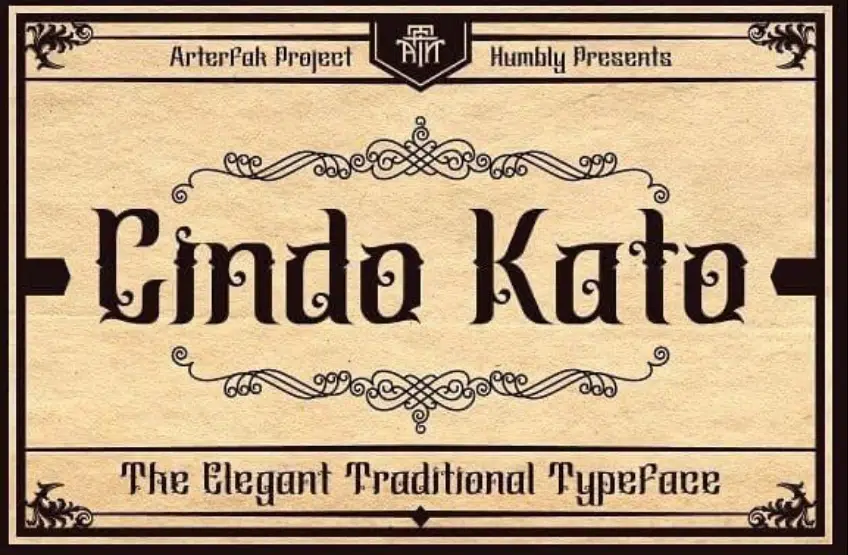
Cindo Kato Font
Cindo Kato Font is perfect for modern brand identities, contemporary logo designs, creative agency branding, stylish fashion labels, trendy social media graphics, artistic poster designs, innovative product packaging, urban lifestyle marketing, cutting-edge editorial layouts, and bold projects that celebrate creative individuality and contemporary design sensibility.
This font is exciting because it delivers distinctive personality and contemporary flair through uniquely crafted letterforms that feel fresh, confident, and unapologetically modern. The innovative character design breaks conventional typography rules while maintaining excellent readability, making it ideal for brands and creators who want to stand out from the crowd and make memorable impressions with audiences seeking originality.
The Cindo Kato Font family typically includes uppercase and lowercase characters, numerals, punctuation marks, special symbols, stylistic alternates, and creative glyphs that provide designers with flexibility to craft bold compositions with distinctive contemporary character.